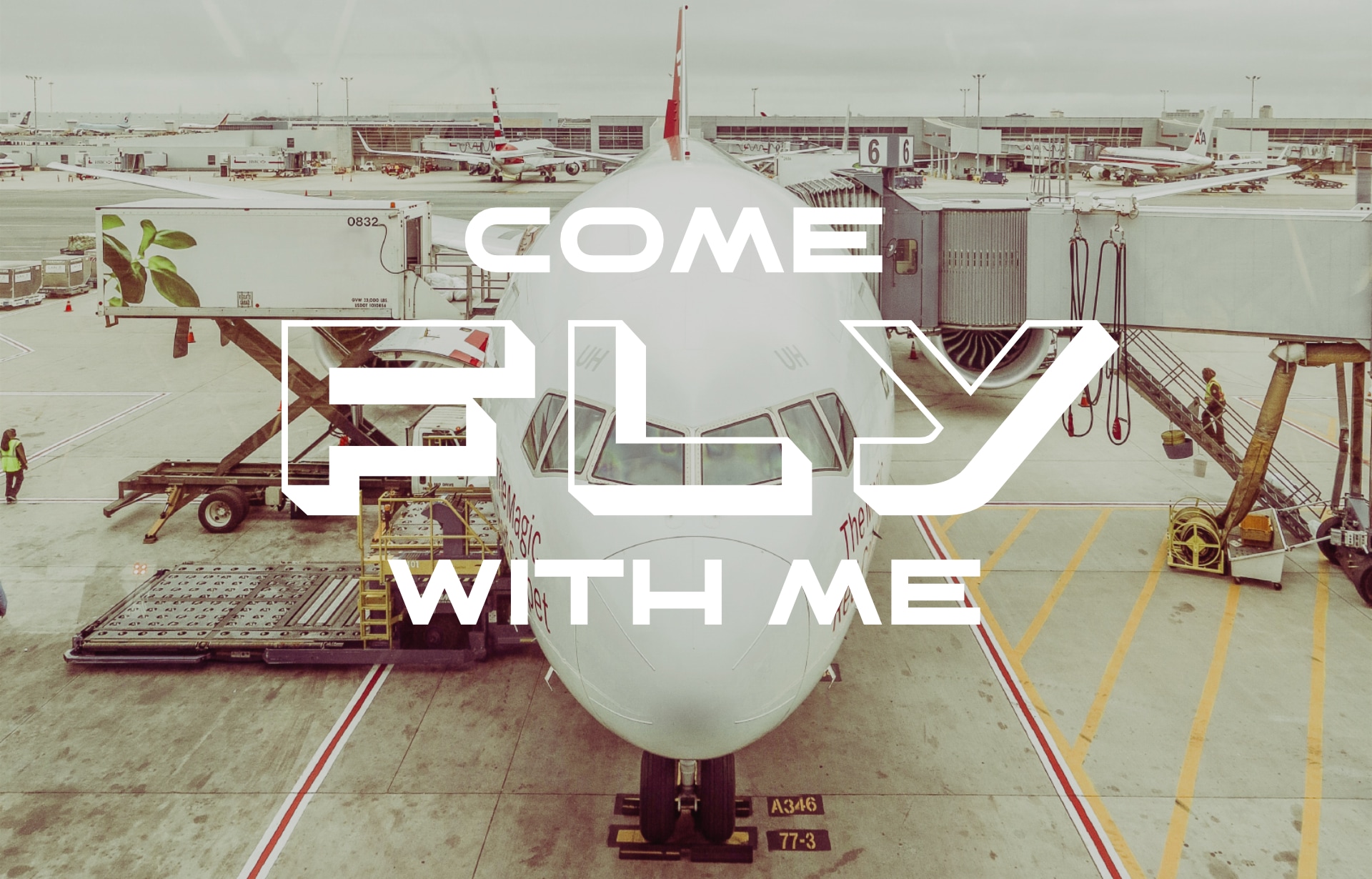
CA Arcona started with one goal: make a font that looks like the lettering you'd see on an aircraft. Cape Arcona needed an airline, so that became the perfect excuse – and CA Arcona was born.
There are some upper and lowercase variations built in, so you've got more flexibility when setting type. A 3D version rounds things out nicely. Want the best effect? Type your word, duplicate it, and switch the copy's style to "shadow."